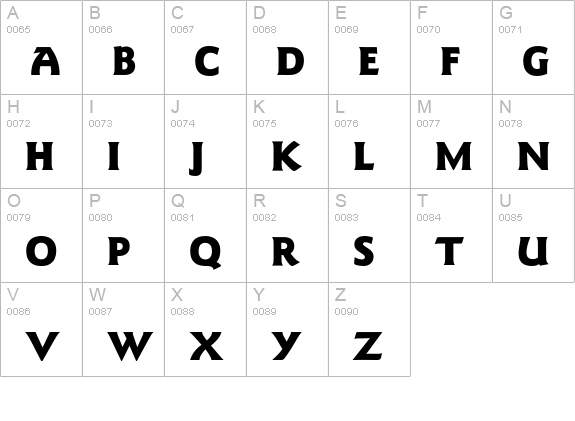
Goudy Sans* Black is a maximum-weight, dramatic variant in the Goudy typeface family \xE2\x80\x94 well suited to maximum-impact headlines, posters, and packaging.
Goudy Sans* Black font exudes bold sophistication and modern elegance. With its sleek lines and strong presence, this typeface commands attention and makes a bold statement. The sharp, clean edges of each letter give Goudy Sans* Black a contemporary feel while still retaining a touch of classic charm. What's even better is that this exceptional font is available for free download at FontsMarket.com. Whether you're working on a branding project, editorial design, or any other creative endeavor, Goudy Sans* Black is the perfect choice to add a touch of refinement and professionalism. Download this stunning font today and elevate your designs to new heights.